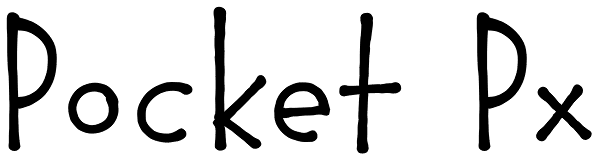
Pocket Px
Check out other fonts in the Pocket family: Pocket Serif and Pocket Swash Inspired by illustration lettering, Pocket has a contemporary, quirky feel. Its combination of narrow and round forms give it a humorous feel.It has support for most western...